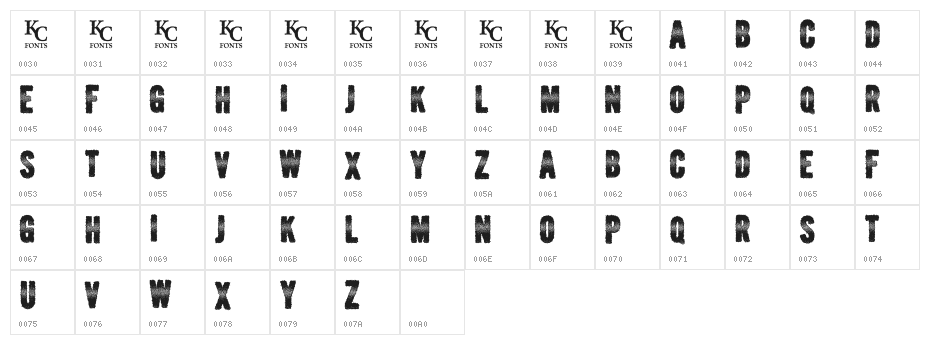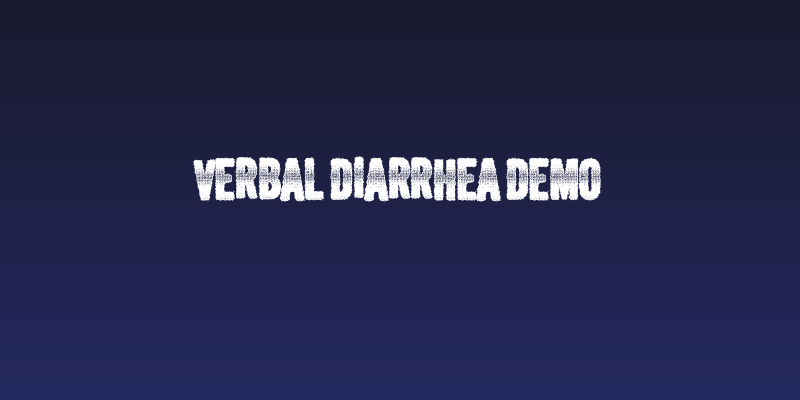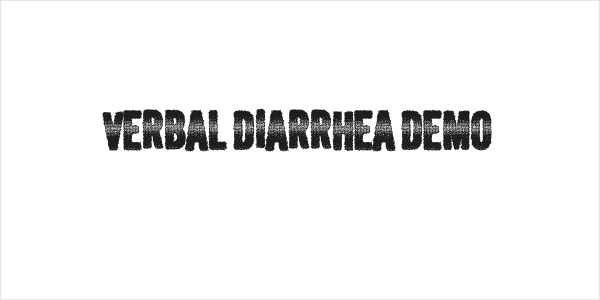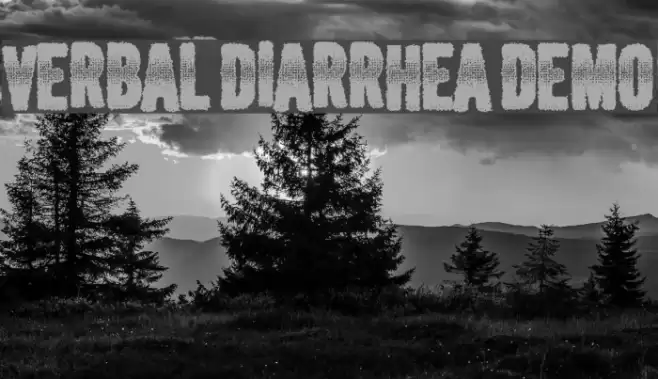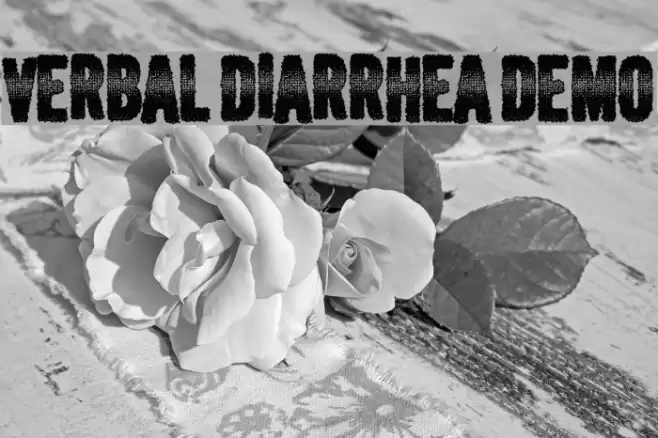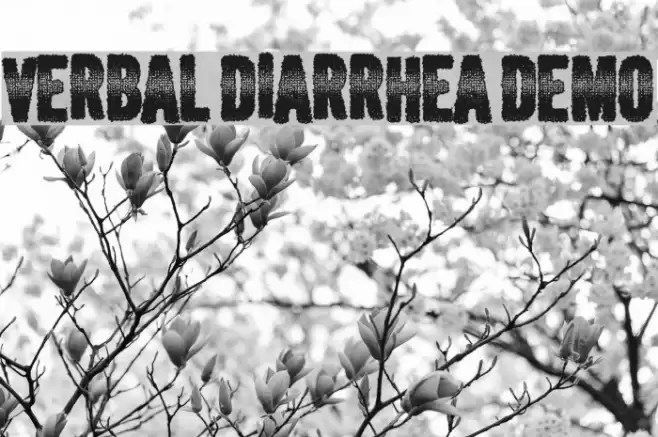
Verbal Diarrhea DEMO Font
✎ Distorted Eroded
Verbal Diarrhea DEMO Description
This font features a bold and distressed style, characterized by a rough, textured appearance that gives it a grunge or worn-out look. The letters are thick and substantial, with uneven edges that create a sense of movement and energy. This style is reminiscent of vintage or retro designs, often used to convey a sense of rebellion or edginess. The font's unique texture makes it stand out, making it ideal for projects that require a bold statement. Its uppercase letters are uniform in height, providing a consistent and cohesive look across different text sizes.
| Overall Style | Vintage |
| Proposed Projects | Ideal for music album covers, posters, t-shirt designs, and branding that requires a bold, edgy look. |